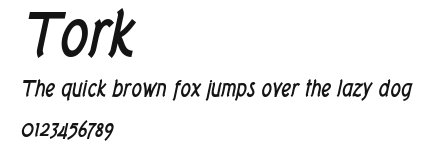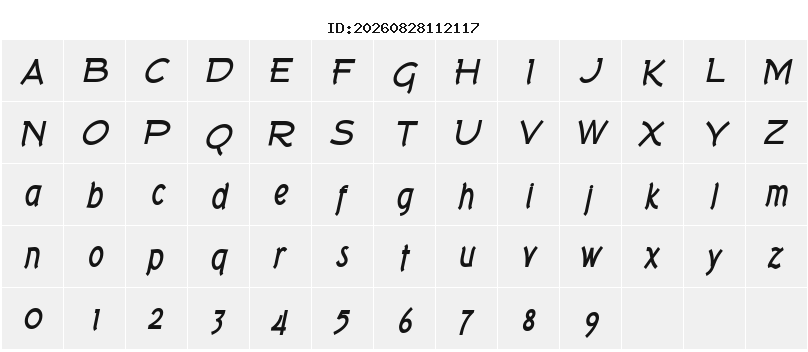
• Font Name: Tork
• Font ID: Tork Bold Italic
• Full Font Name: Tork Bold Italic
• PostScript Name: TorkBoldItalic
• Character Count: 518
About Tork.ttf
Tork.ttf is a modern, elegant sans-serif font designed for ultimate readability and visual harmony. Perfect for branding, headlines, web design, and print materials.